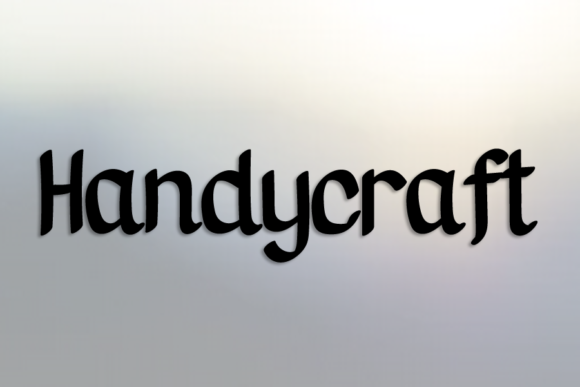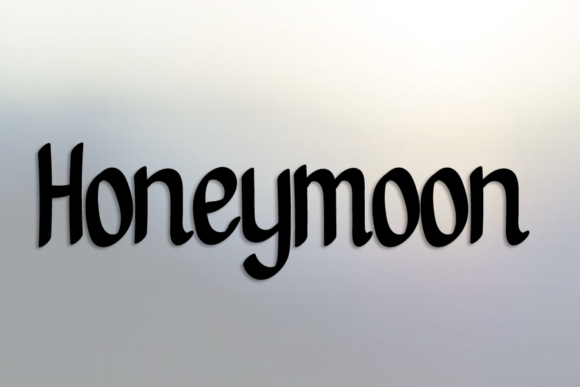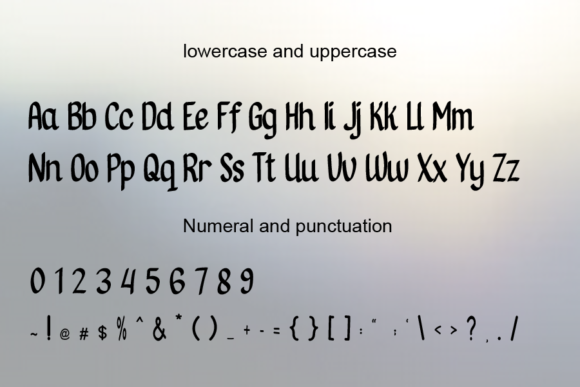
Introduction to Keep Smart Font
Remember that moment when you’re brainstorming ideas for a creative project and you stumble upon the perfect font? For designers, it’s a match made in heaven. The right font can elevate your design from ordinary to extraordinary, and that’s exactly what the Keep Smart Font does.
As a simple, quirky, and adaptable handwritten font, Keep Smart Font is a valuable resource for designers looking to add a touch of elegance to their work. Whether it’s a wedding invitation, business card, or social media post, this font is sure to make a statement. And the best part? It’s a free download, making it an accessible design resource for creatives of all levels.
With its high-quality design and transparent background, Keep Smart Font is perfect for designers who want to add a personal touch to their projects. Whether you’re working on a personal or professional project, this font is sure to impress.
Key Features of Keep Smart Font
- Keep Smart Font offers a unique and modern design, suitable for a wide range of applications.
Honest Review: Keep Smart Font
As a designer, I’m always on the lookout for high-quality fonts that can elevate my creative projects. Keep Smart Font is a free download that I’ve been experimenting with, and I have to say, it’s been a great addition to my design resource arsenal.
What works well: ✨ The font is incredibly versatile, making it perfect for a wide range of design projects, from corporate branding to digital interfaces. The transparent background allows for seamless layering and blending, which is a huge plus for me. The font’s modern and sleek aesthetic is also a major selling point – it’s sure to give your designs a professional and sophisticated look.
Here are some specific features that I love about Keep Smart Font:
- Extremely legible and easy to read
- Works beautifully with both light and dark backgrounds
Limitations: ⚠️ While Keep Smart Font is an excellent font, it’s not perfect. One thing I’ve noticed is that it can be a bit heavy on the system, which can cause some performance issues. Additionally, the font is not as customizable as some of the other high-end fonts on the market.
Overall impression: I’m really impressed with Keep Smart Font. It’s a high-quality design resource that’s perfect for any creative project. While it’s not without its limitations, I think it’s a great choice for designers who want a modern and versatile font that’s easy to use. I highly recommend it for anyone looking to take their designs to the next level.
Tips for Getting the Most Out of Keep Smart Font
Experiment with different font sizes, colors, and combinations to achieve the desired visual effect. Use the font in conjunction with other design elements to create a cohesive and engaging design.
Common Use Cases for Keep Smart Font
The Keep Smart Font is ideal for creative projects that require a high-quality, modern font. It’s perfect for use in logos, branding materials, and marketing collateral. With its transparent background, you can easily overlay the text on any design element.